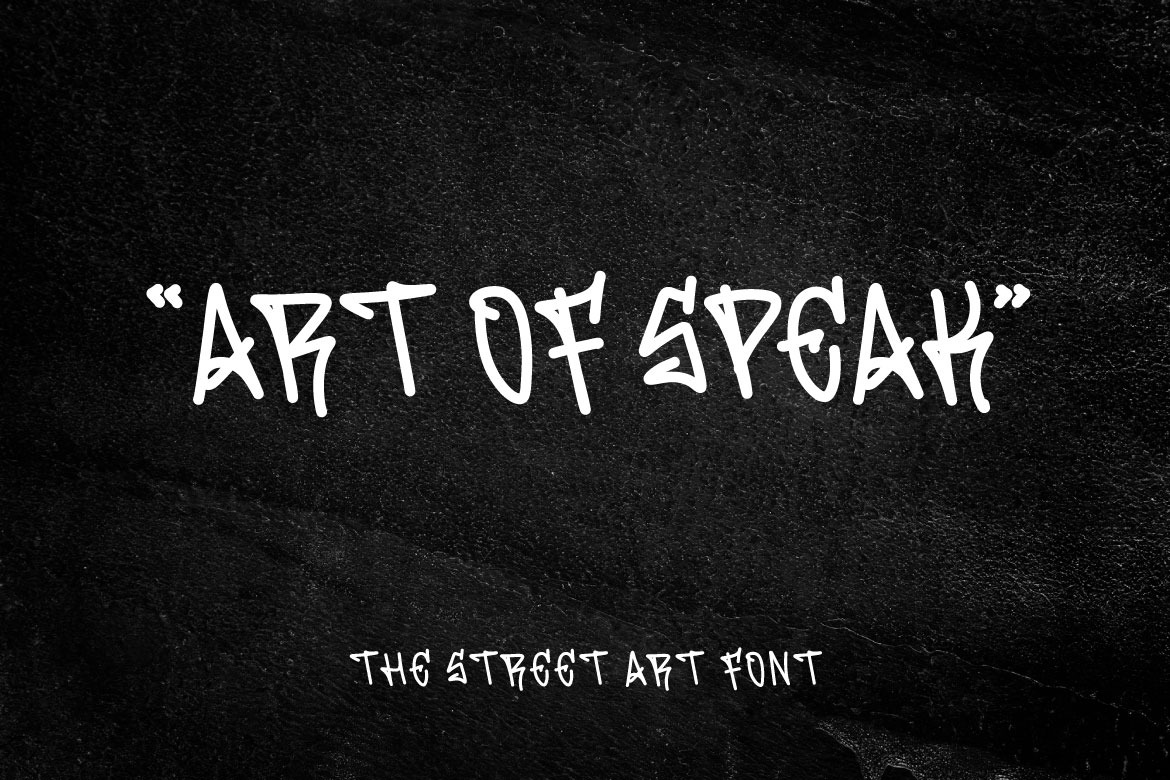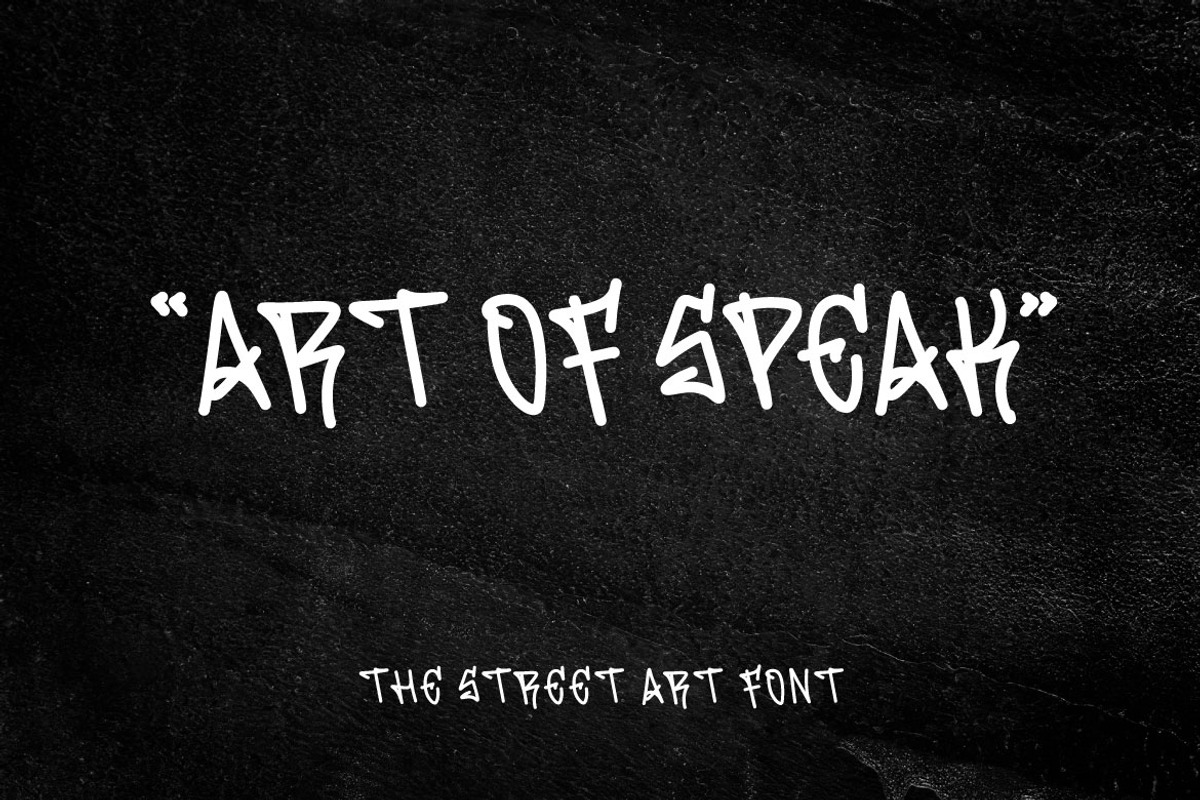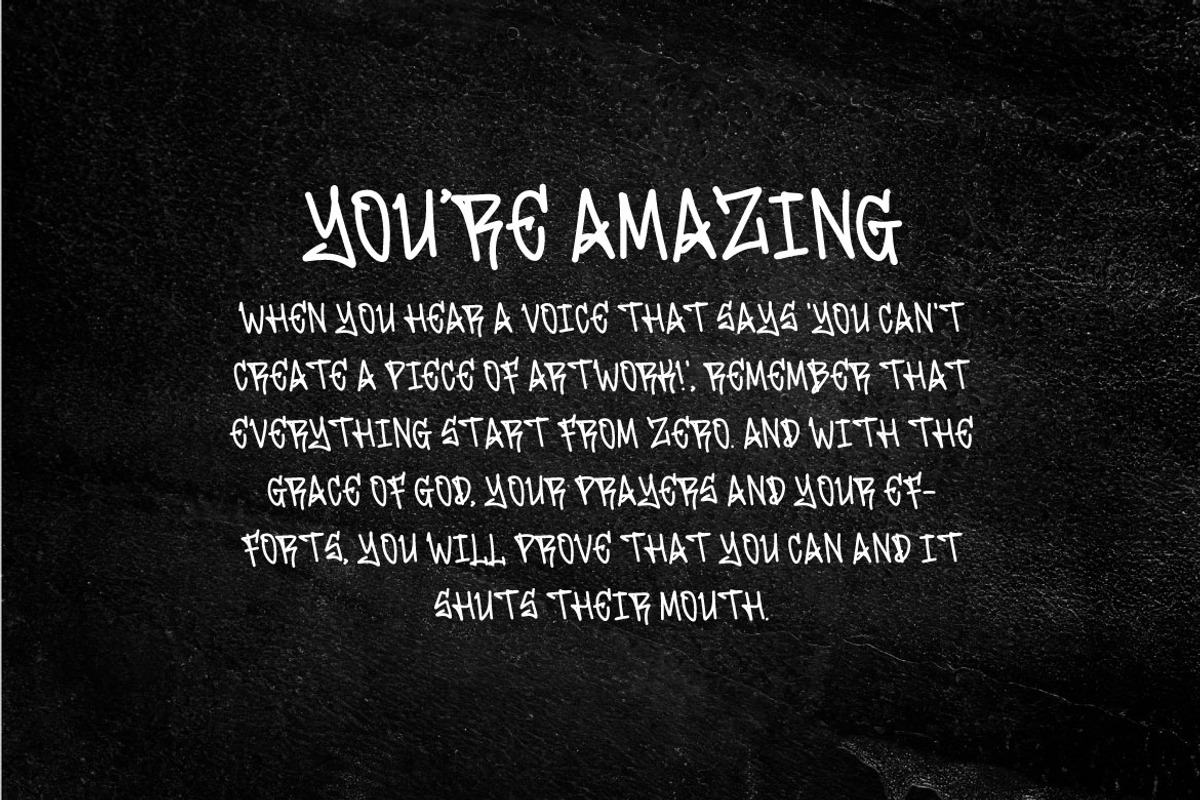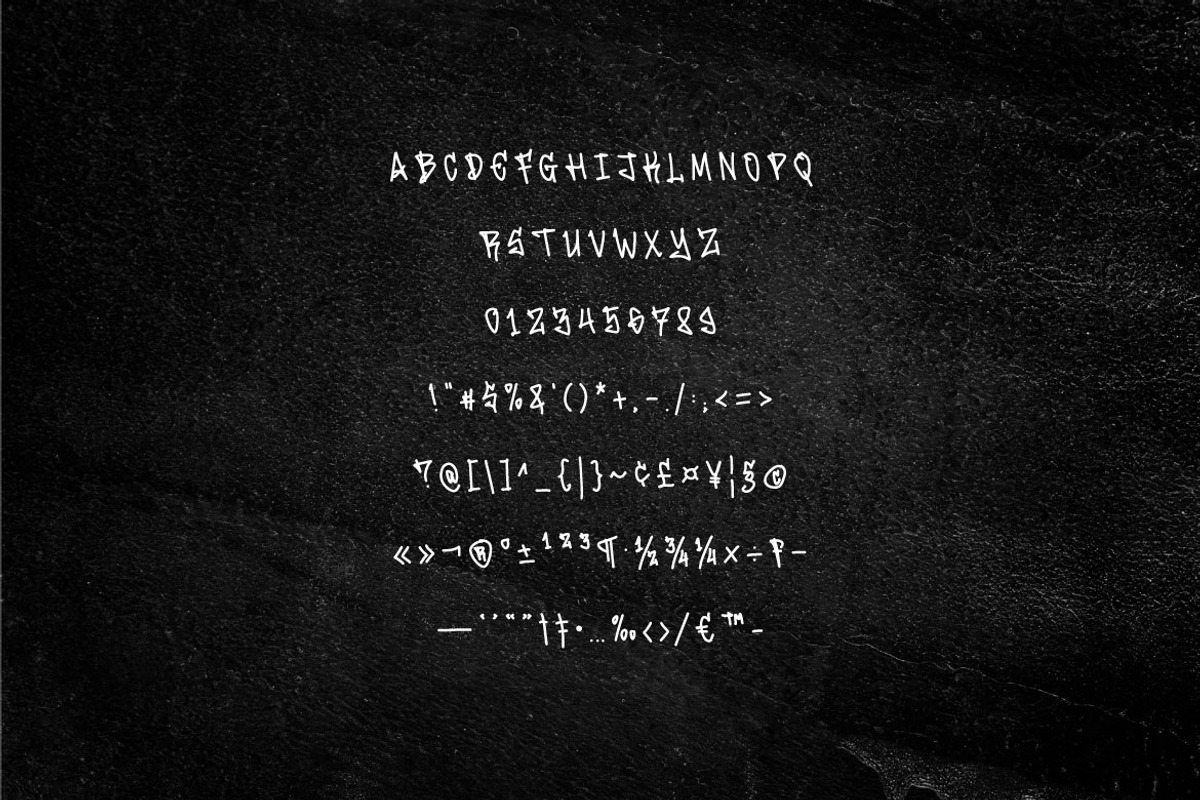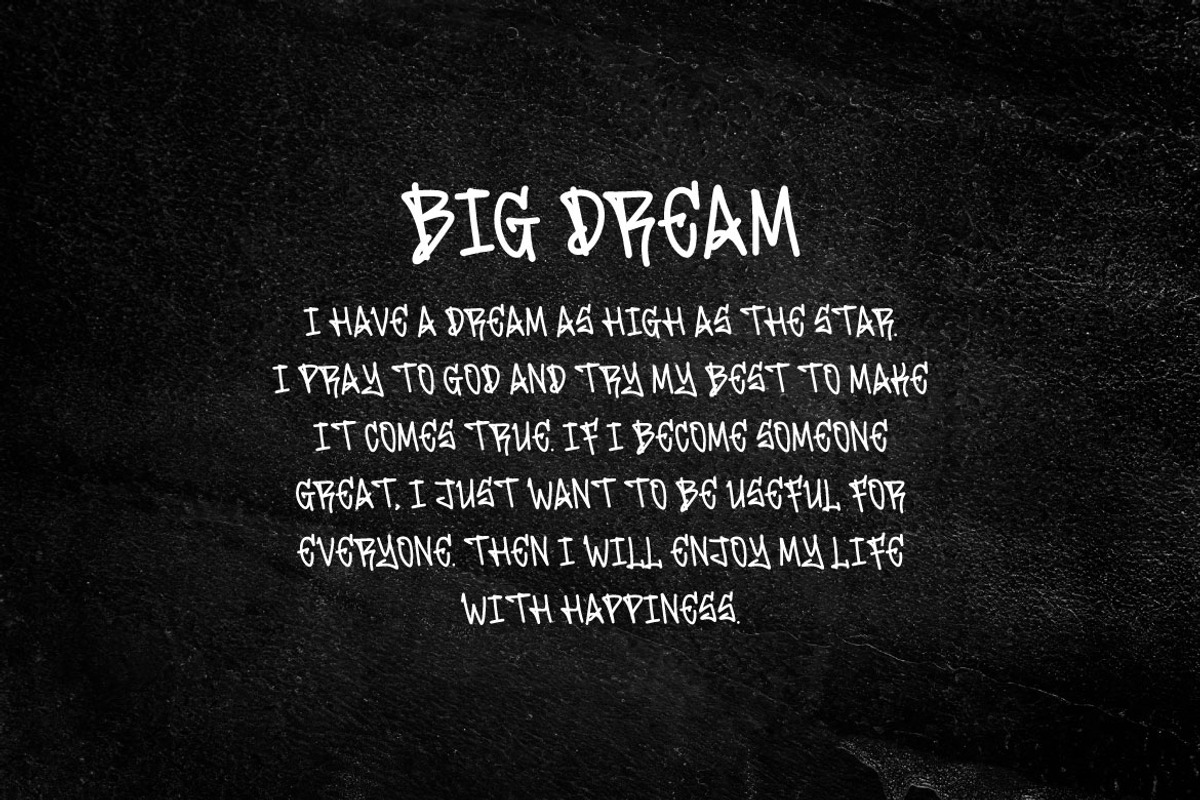
Art of Speak - Graffiti Display Font
Hello! looking for a font with street art style? Art Of Speak is here! Art Of Speak can be used in any works such as logo, wall art, apparel branding, team logo and many more.